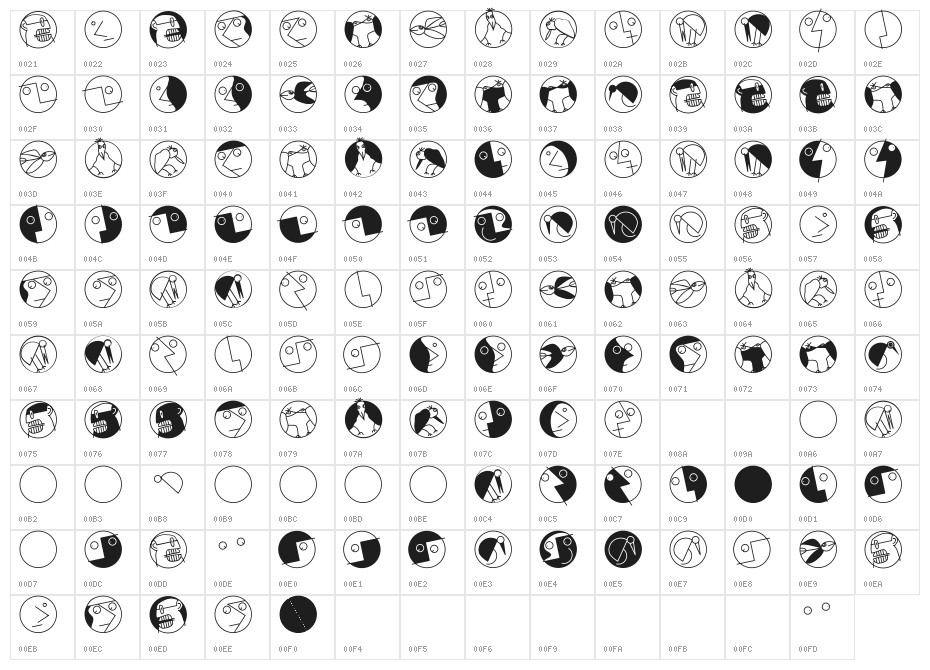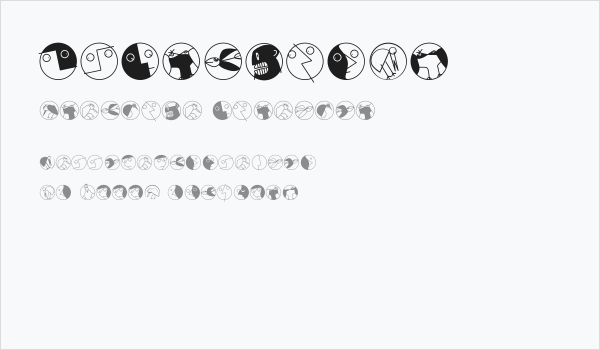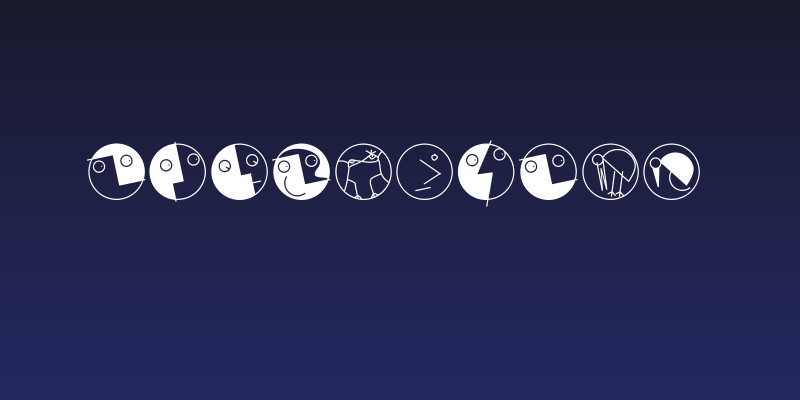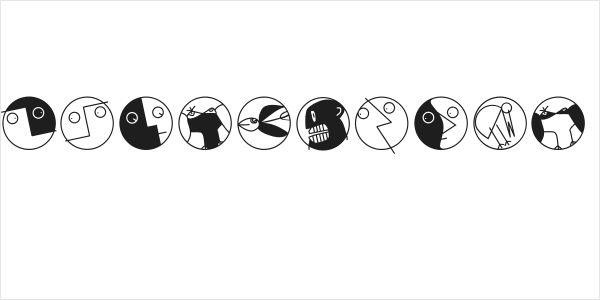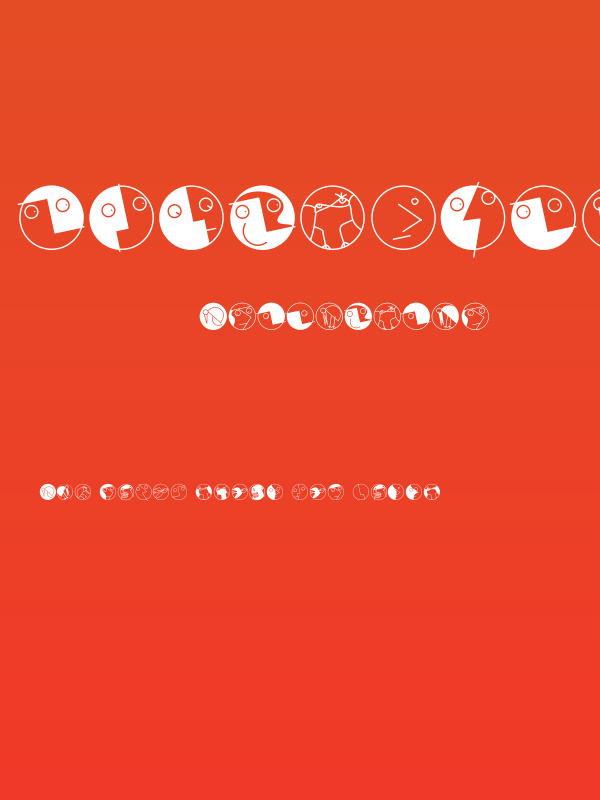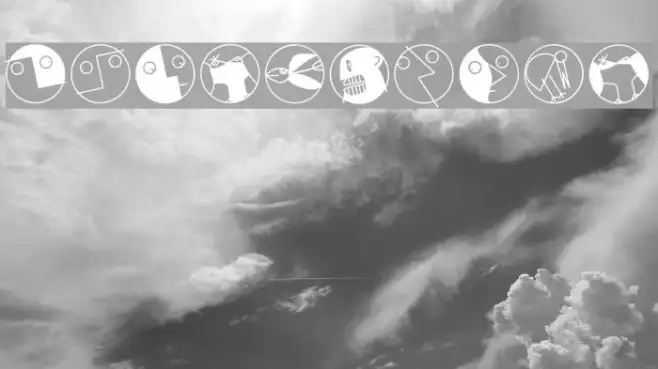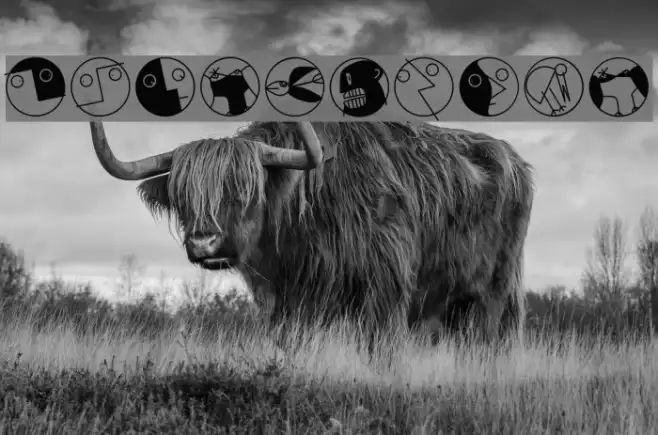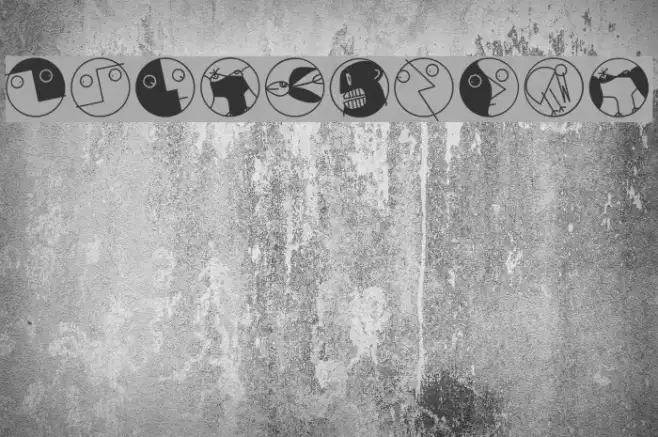
MkDrawings Font
MkDrawings Description
A highly decorative and abstract font where each character is represented by a circular icon featuring minimalist, Picasso-like line drawings of faces and animals, with strong black and white contrast and playful, artistic forms.
| Overall Style | Decorative, Artistic, Abstract |
| Use Case | Logos, Posters, Artistic Headlines, Branding |
| Proposed Projects | Children’s books, art posters, creative branding, album covers, editorial illustrations. |